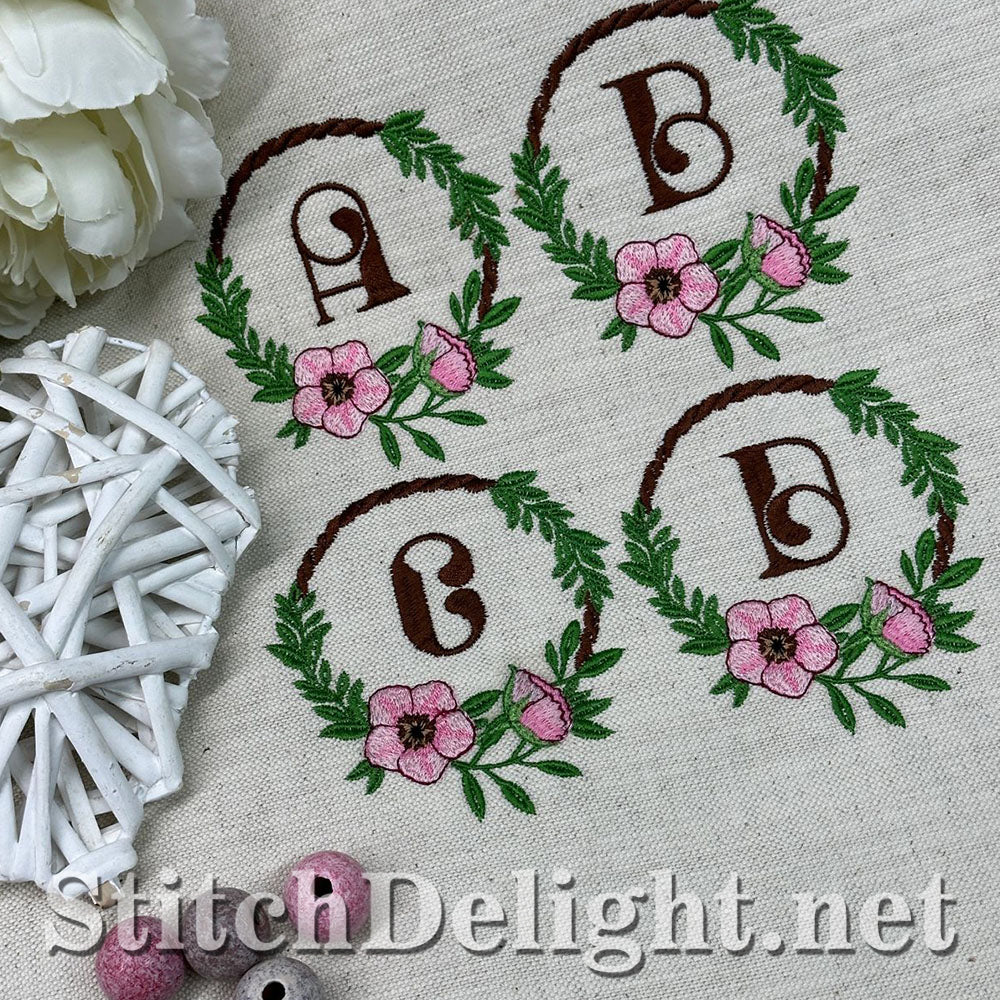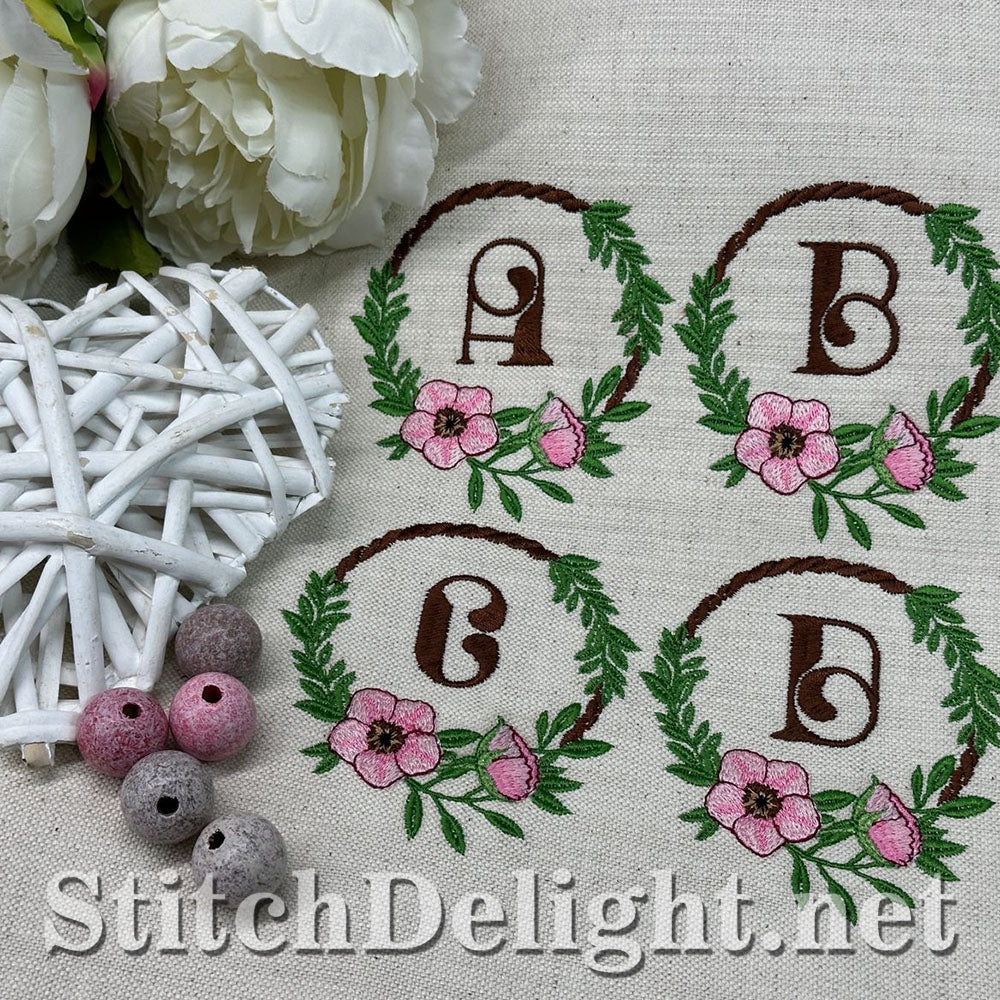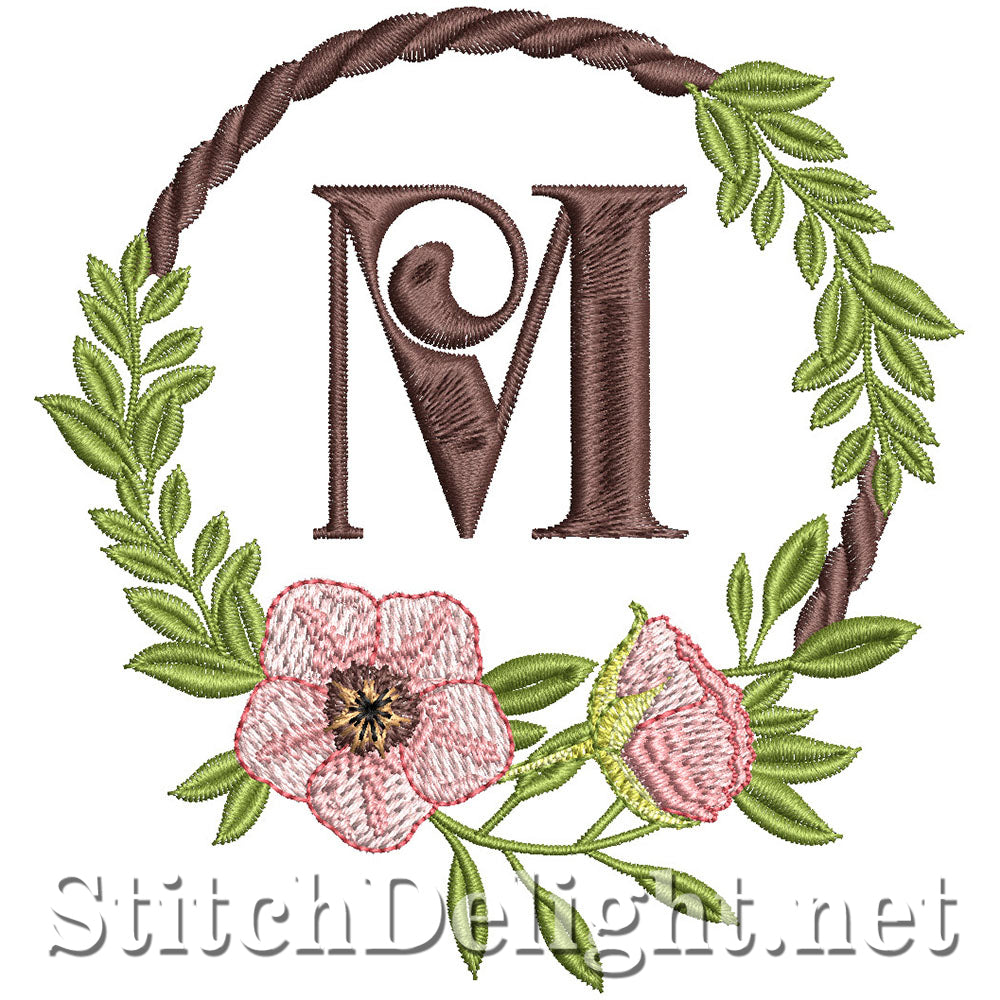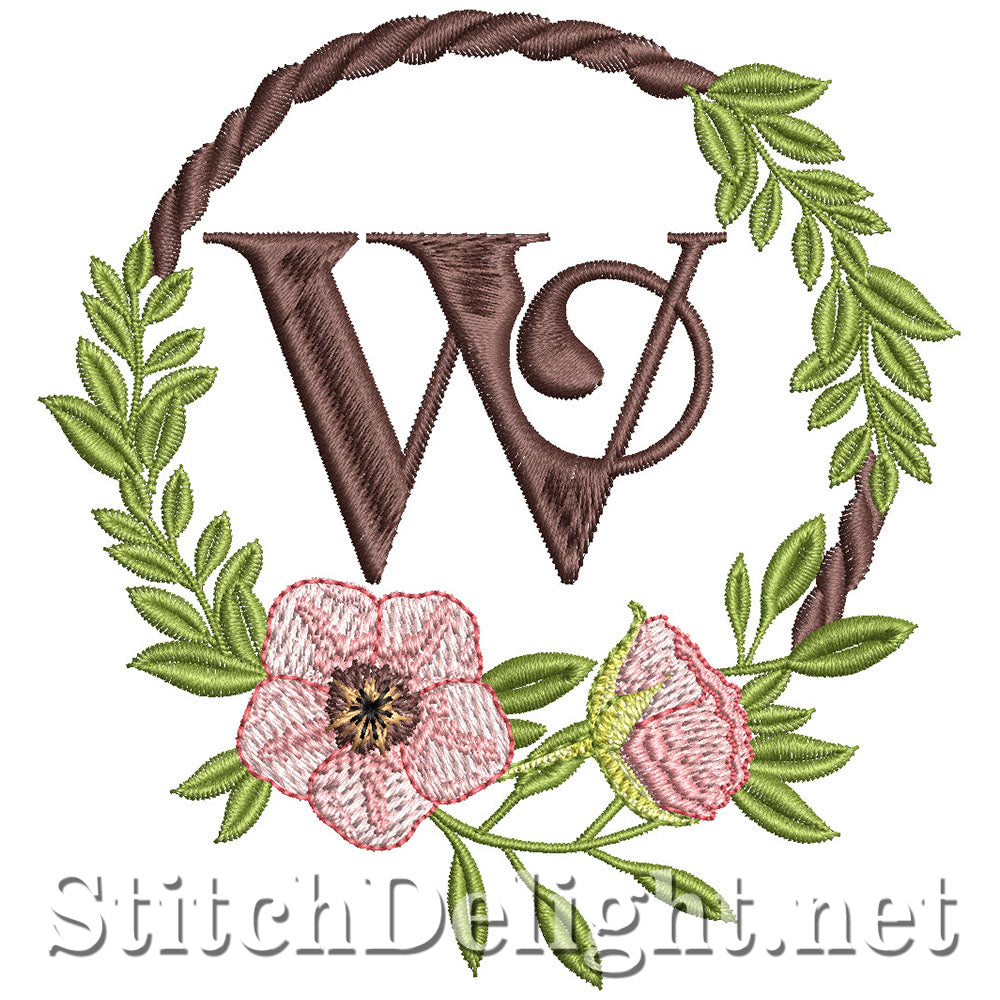
This Blossom font fits in a 4x4" hoop and is suitable for all fabric types using the correct stabilizer, make your design Blossom with this elegant colorful and friendly font! This font has an average height of 3.7"